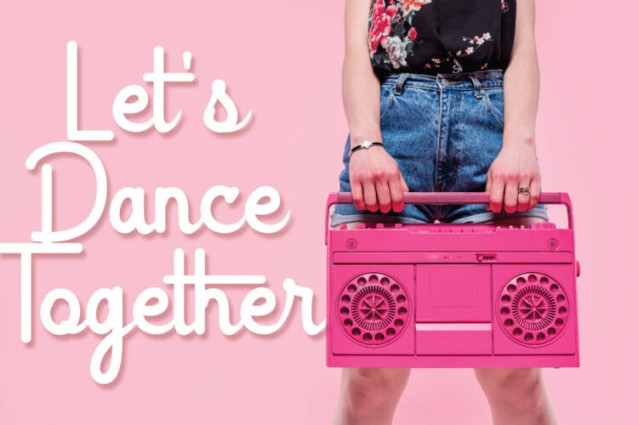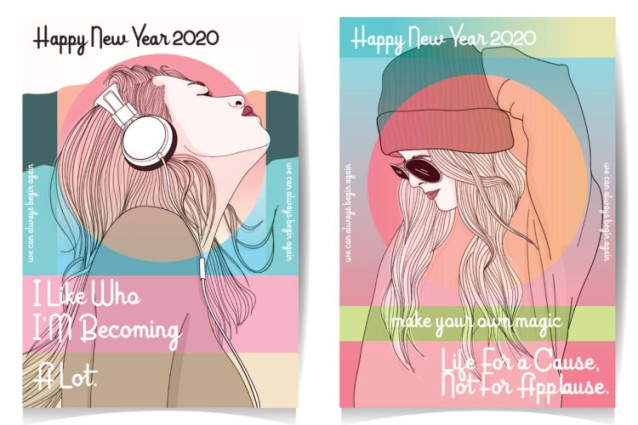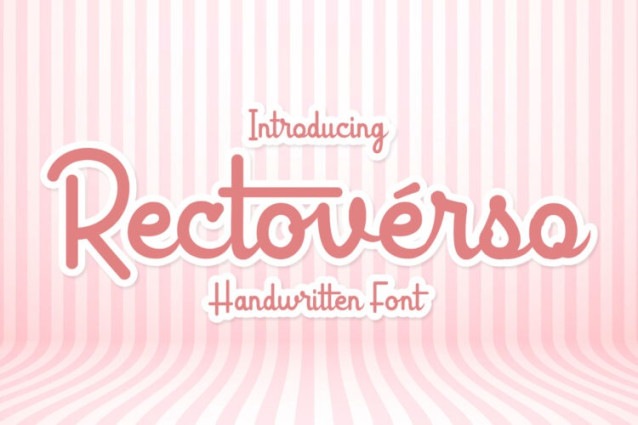
Rectoverso Script Font
Rectoverso Script Font is modern and playfull script but also suitable for retro fonts.
MULTILINGUAL ACCENT : ŽžŠŒšŸÀÁÂÃÄÅÆÇÈÉÊËÌÍÎÏÐÑÒÓÔÕÖØÙÚÛÜÝßàáâãäåæçèéêëìíîïñòóôõöøùúûüýÿ